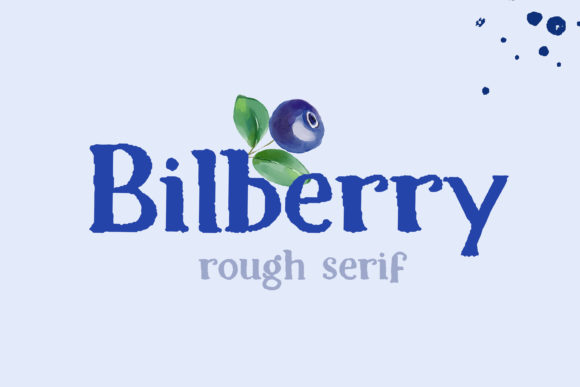
The Ultimate Guide to Bilberry Font: Elevate Your Designs with this Textured Serif Gem
I’ll never forget the time I was working on a project, pouring my heart and soul into it, but something just felt off. The design was great, the colors were poppy, but the font… ugh. It was like nails on a chalkboard. I scoured the internet, tried font after font, but nothing seemed quite right. That was until I stumbled upon Bilberry Font. 💥
It was love at first sight! The rough, textured serif font instantly elevated my design and made it stand out. I knew right then and there that Bilberry Font was going to be an incredible asset to my font library, and I’m excited to share its awesomeness with you.
Honest Review: The Good, the Bad, and the Quirky
What I Love About Bilberry Font ✨
- 💯 Unique texture: The rough, textured look of Bilberry Font adds a level of depth and character to any design.
- ✅ Versatility: Whether you’re working on a bold statement piece or a more subtle design, Bilberry Font adapts effortlessly.
- 🎨 Creative freedom: With its wide range of OpenType features and glyphs, Bilberry Font gives you the creative freedom to experiment and push the boundaries of your design.
- ⚠️ Legibility at small sizes: While Bilberry Font looks amazing at larger sizes, it can get a bit tricky to read at smaller sizes. Make sure to test it out before committing to a specific use case.
- 🤔 Pairing with other fonts: Bilberry Font’s unique texture can be a bit overpowering when paired with other fonts. Experiment with different combinations to find the perfect match.
The Backstory Behind Bilberry Font
Bilberry Font was designed with the intention of creating a unique, textured serif font that would add a level of depth and character to any design. The designer, inspired by the natural world, aimed to capture the essence of a rough, organic texture in a digital font. The result is a font that’s both elegant and rough around the edges, perfect for designers looking to add some personality to their work.
Q: What is Bilberry Font best used for?
A: Bilberry Font is a versatile font that can be used for a wide range of projects, from headings and titles to body text and quotations.
Q: Is Bilberry Font suitable for digital use?
A: Absolutely! Bilberry Font is optimized for digital use and looks great on a variety of devices and platforms.
Q: Can I use Bilberry Font in print materials?
A: Yes, Bilberry Font is also suitable for print use. Its textured look adds a level of depth and character to any print material, from business cards to posters and brochures.